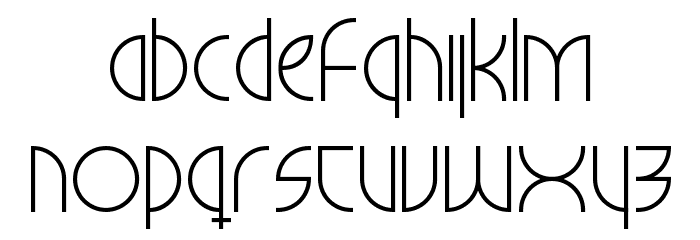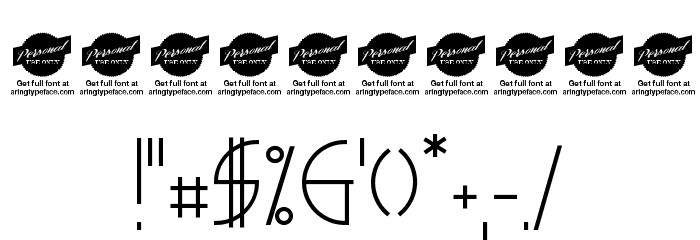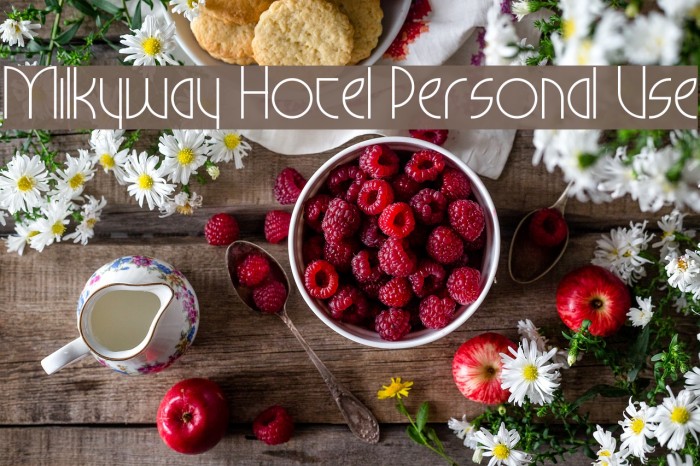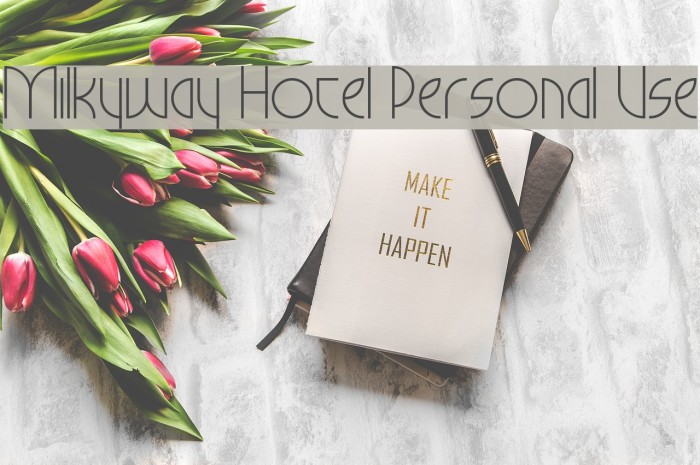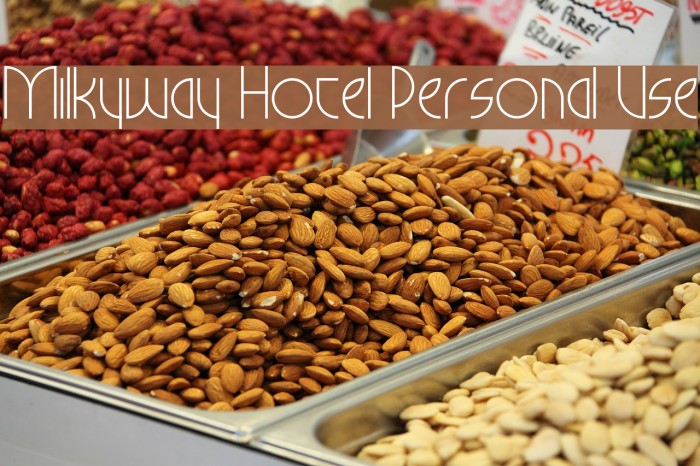
Milkyway Hotel Personal Use Font
This font features a unique and modern design with a geometric and futuristic flair. The characters are composed of clean, straight lines and sharp angles, giving it a distinctive and stylish appearance. The uppercase letters are particularly striking, with a consistent height and width that create a harmonious look. The lowercase letters maintain the same geometric style, offering a cohesive visual experience. The numbers and special characters are designed to match the overall aesthetic, ensuring uniformity across all elements. This font's design is both eye-catching and versatile, making it suitable for a variety of creative projects.
A modern, geometric font with a futuristic style and sharp angles.